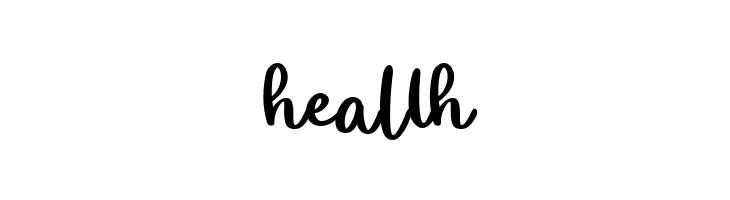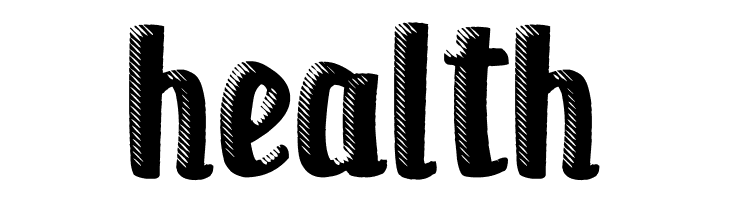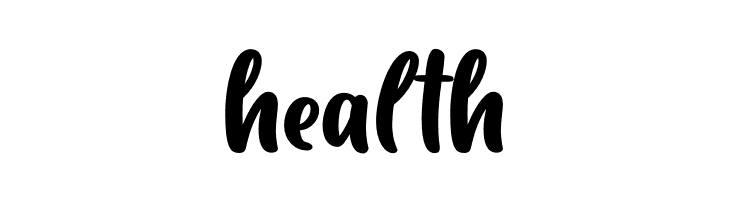
A playful, handwritten script font with smooth, connected strokes.
A modern, elegant script font with flowing cursive letters and dynamic strokes.
A playful, handwritten font with bold, flowing letters and a whimsical style.
A bold, Gothic-inspired font with intricate, angular details.
A playful, bold, and rounded font with a whimsical design.
A classic serif font with elegant strokes and pronounced serifs.
An elegant and flowing script font with ornate, decorative letterforms.
A playful, bold font with rounded, whimsical letterforms.
A bold, retro-style font with diagonal hatching and a playful, dynamic appearance.
A playful, bold script font with interconnected, flowing strokes.